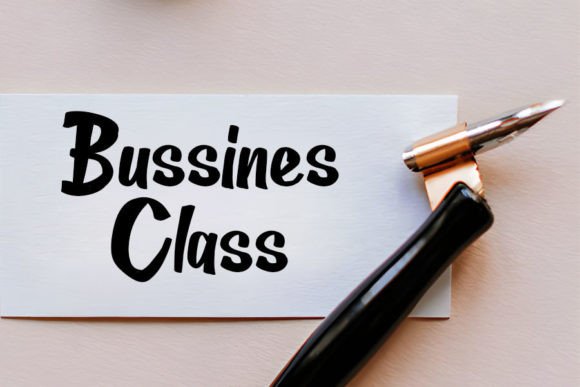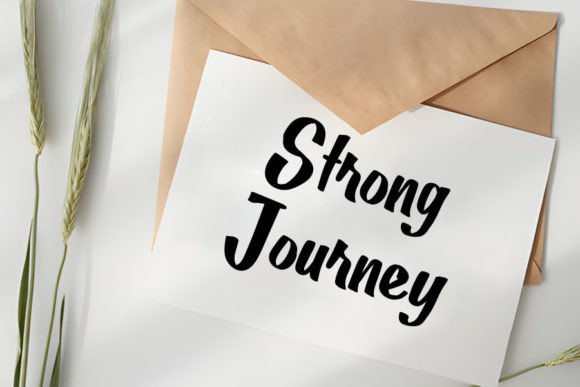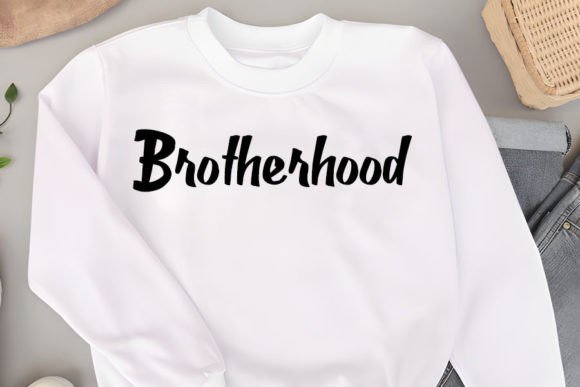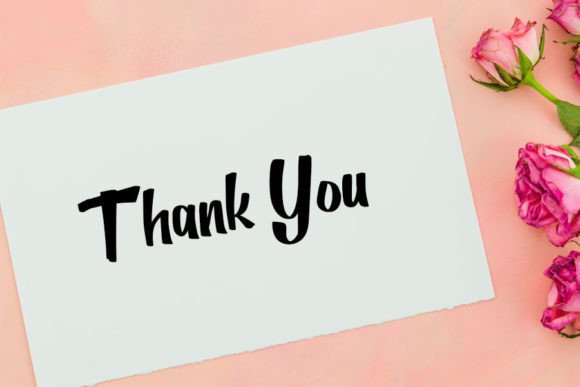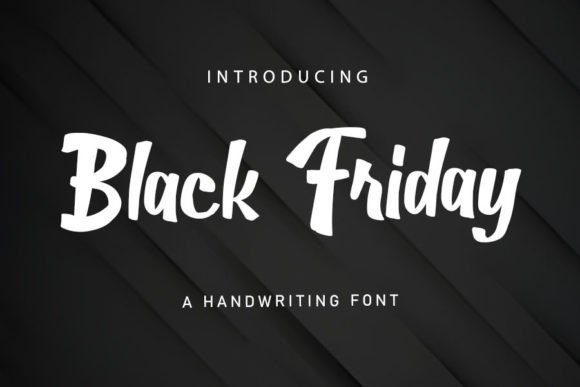
The Ultimate Guide to Black Friday Font: Elevate Your Designs with a Relaxed and Laid-Back Style
I’ll never forget the time I was working on a project for a craft fair, and I just couldn’t seem to find the right font to match my client’s brand. The design needed to be fun, yet sophisticated, and I spent hours scouring the internet for the perfect match. That’s when I stumbled upon Black Friday Font, a beautiful handwritten font that instantly caught my eye. In this article, I’ll share my experience with Black Friday Font, its features, and how to make the most of it in your designs.
An Honest Review of Black Friday Font
So, what makes Black Friday Font so special? Here are a few things I love about it:
- ✨ Unique and eye-catching: Black Friday Font has a distinctive, laid-back vibe that’s perfect for adding a personal touch to your designs.
- ✅ Versatile: Whether you’re working on a craft project, a social media graphic, or a marketing campaign, this font adapts seamlessly to any topic or theme.
- 💯 Easy to read: Despite its relaxed feel, Black Friday Font remains clear and legible, even at smaller sizes.
- 🤔 Limited formal applications: While Black Friday Font is amazing for informal designs, it might not be the best choice for more formal or corporate projects.
- ⚠️ Some glyphs may require manual adjustment: Depending on your design software, you might need to tweak certain glyphs to get the best results.
The Story Behind Black Friday Font
Black Friday Font was designed with the intention of capturing the carefree essence of handwritten notes. The designer aimed to create a font that felt approachable, friendly, and authentic. While the exact story behind the font’s creation might be shrouded in mystery, its charm lies in its ability to bring a sense of warmth and personality to any design.
| Font Name | Black Friday Font |
| Author | Leontyn Art |
| What makes Black Friday Font unique? | Its relaxed, laid-back style and versatility across various design applications. |
| Is Black Friday Font suitable for digital and print designs? | Yes, Black Friday Font works well in both digital and print designs, from social media graphics to posters and flyers. |
Black Friday Font is a wonderful addition to any designer’s toolkit, offering a unique blend of relaxation and sophistication. Whether you’re a seasoned pro or just starting out, this font is sure to elevate your designs and bring a touch of personality to your projects.